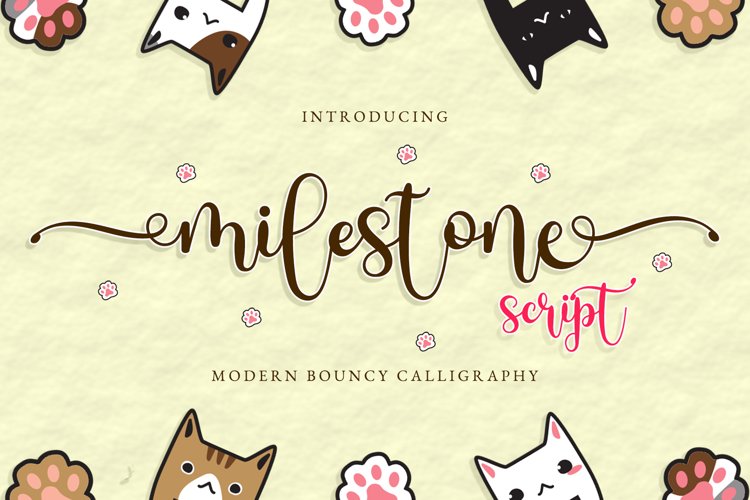
Milestone Script - Cute Calligraphy Script
Milestone Script is bouncy cute script with elegant touch. It is combining sweetness and cuteness in modernity. This font is so catchy to be used in any design, such as social media content, wedding invitation, greetings, branding, logo, and many others.
+Tons of Glyphs, including beautiful alternate glyphs.
+Multilingual glyphs.